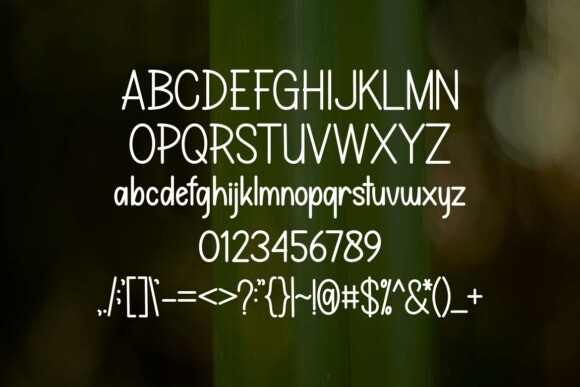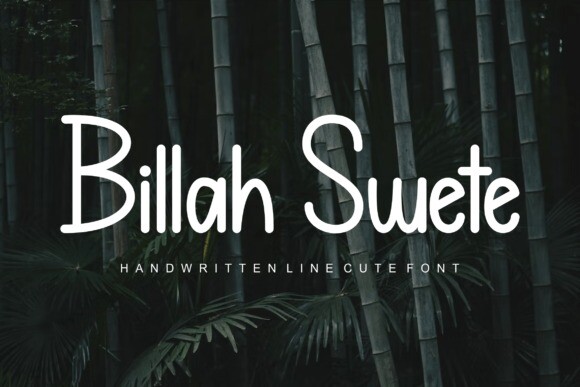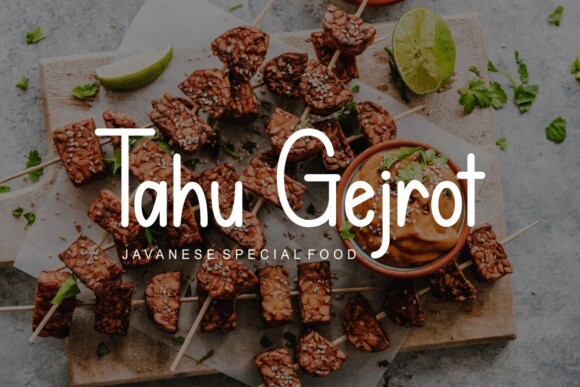
Billahswete Font
BillahSwete is a bold and authentic display font. The font is suitable for any branding project like logo, t-shirt printing, esports, and many more. outstanding in a wide range of contexts.